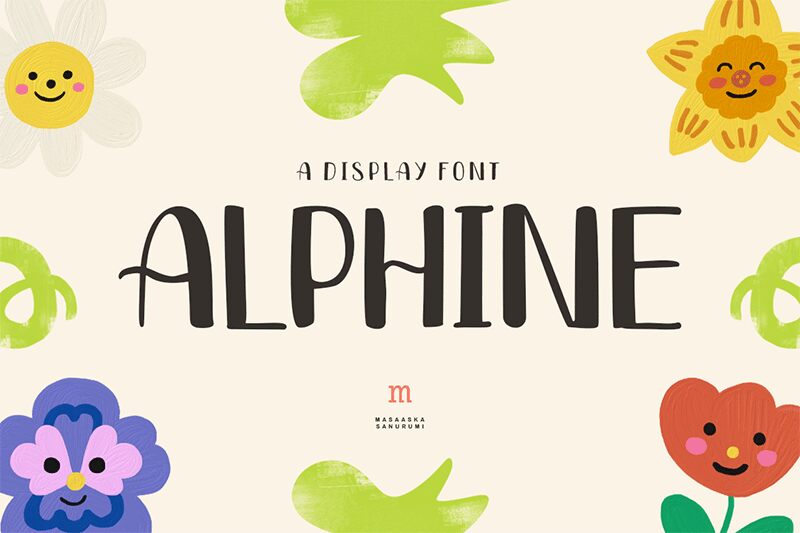
Alphine, crafted by the visionary designer Masa Aska Sanurumi, is a display font that stands out with its playful and distinct character. The fluid, rounded forms give it a whimsical yet sophisticated appearance, making it both approachable and stylish. Alphine's striking curves and bold strokes are particularly eye-catching, ensuring that any text set in this font commands attention.
This unique aesthetic makes Alphine perfect for branding projects that require a touch of personality and charm. Its lively style is also ideal for creative posters, captivating headlines, or engaging social media graphics. Whether used sparingly for emphasis or as the main typeface in bold designs, Alphine brings an unmistakable flair to any visual narrative.